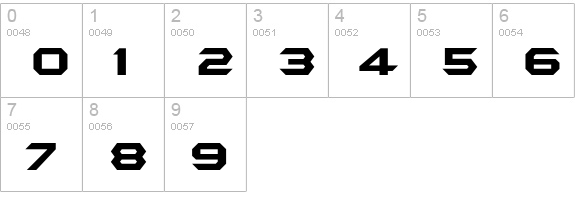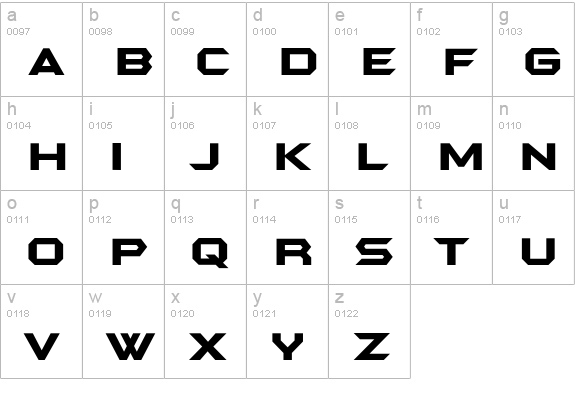
BatmanForever1 Font Details
Introducing BatmanForever1 font, a sleek and modern typeface that exudes sophistication and style. This versatile font is perfect for a wide range of design projects, from branding to editorial design. With its clean lines and classic appeal, BatmanForever1 font adds a touch of elegance to any project. The best part? BatmanForever1 font is completely free to download at FontsMarket.com! Whether you're a designer looking to add a fresh new font to your collection or a business owner in need of a stylish typeface for your branding, BatmanForever1 font is the perfect choice. Download it today and elevate your designs with this stunning font.